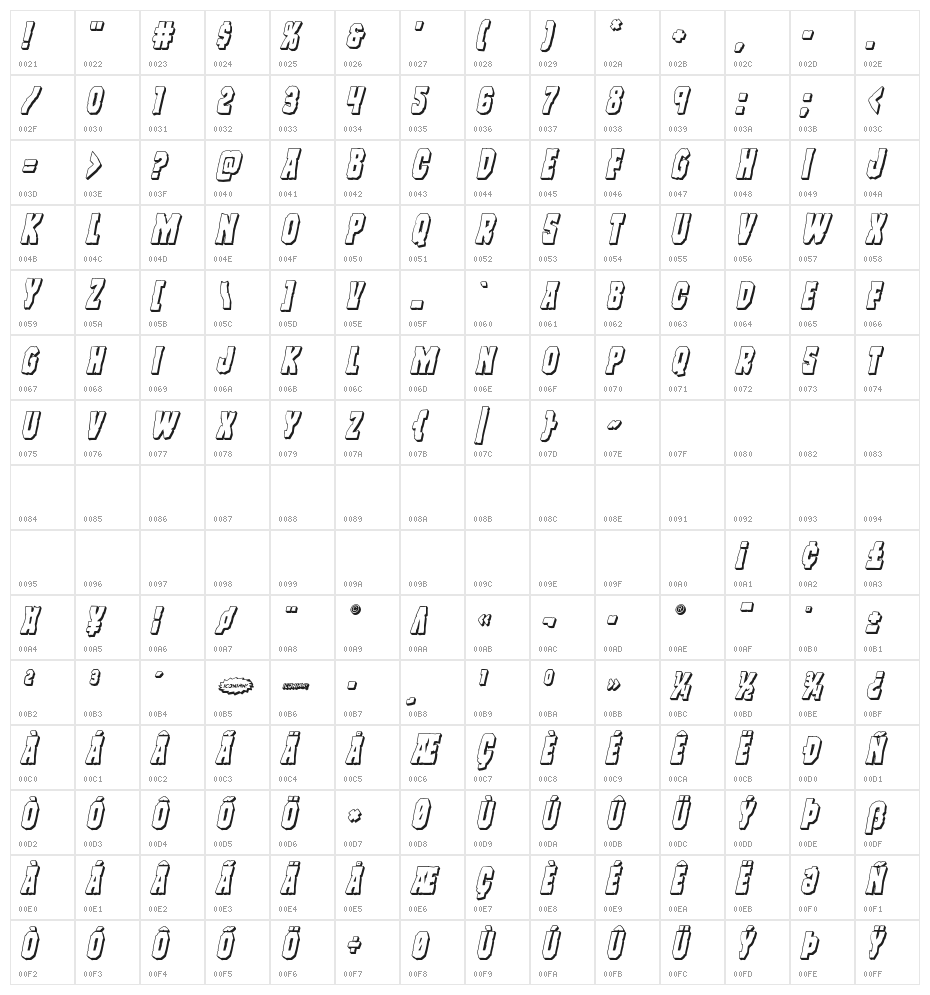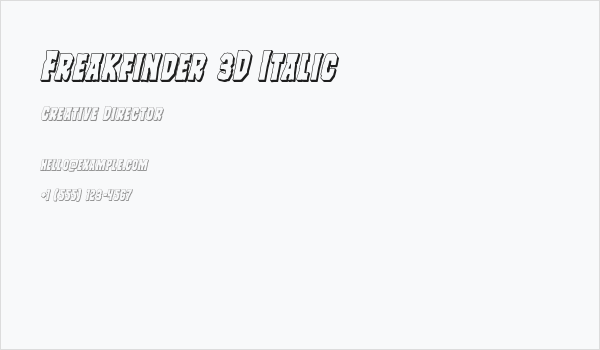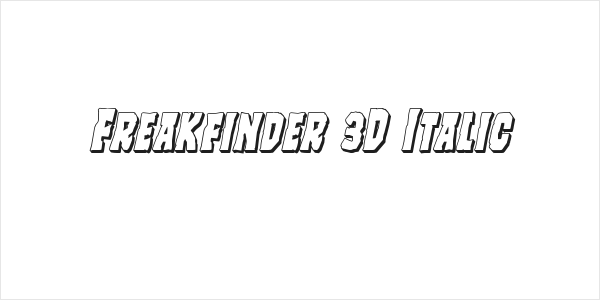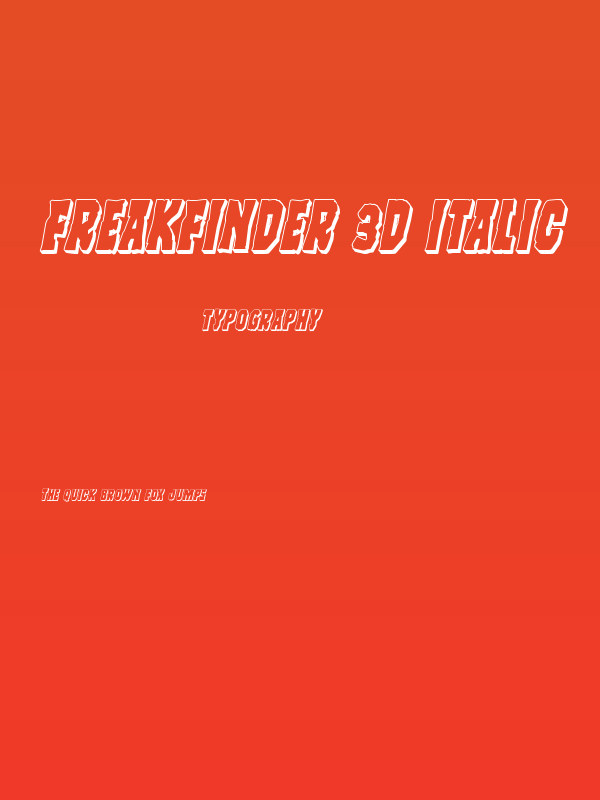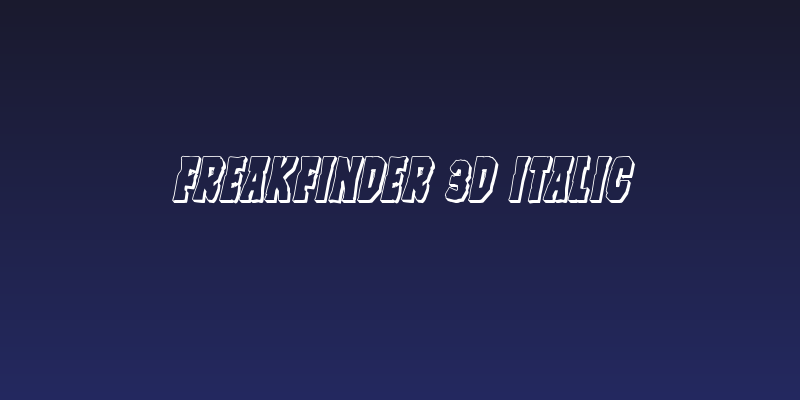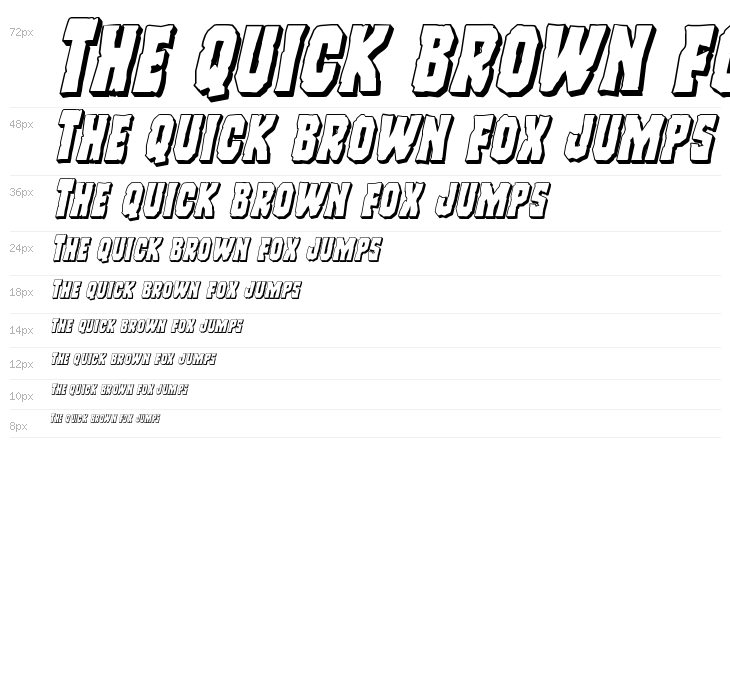
Freakfinder 3D Italic Font
Freakfinder 3D Italic Description
This bold, three-dimensional font features a dynamic italic style that gives each character a sense of movement and depth. The letters are outlined with a shadow effect, enhancing the 3D appearance and making them stand out. The uppercase and lowercase letters maintain a consistent style, with sharp edges and a slightly condensed form. The numerals and special characters follow the same design principles, ensuring uniformity across all glyphs. This font's boldness and unique style make it ideal for eye-catching designs.
| Proposed Projects | Ideal for posters, video game titles, comic book covers, and any project needing a bold, attention-grabbing typeface. |